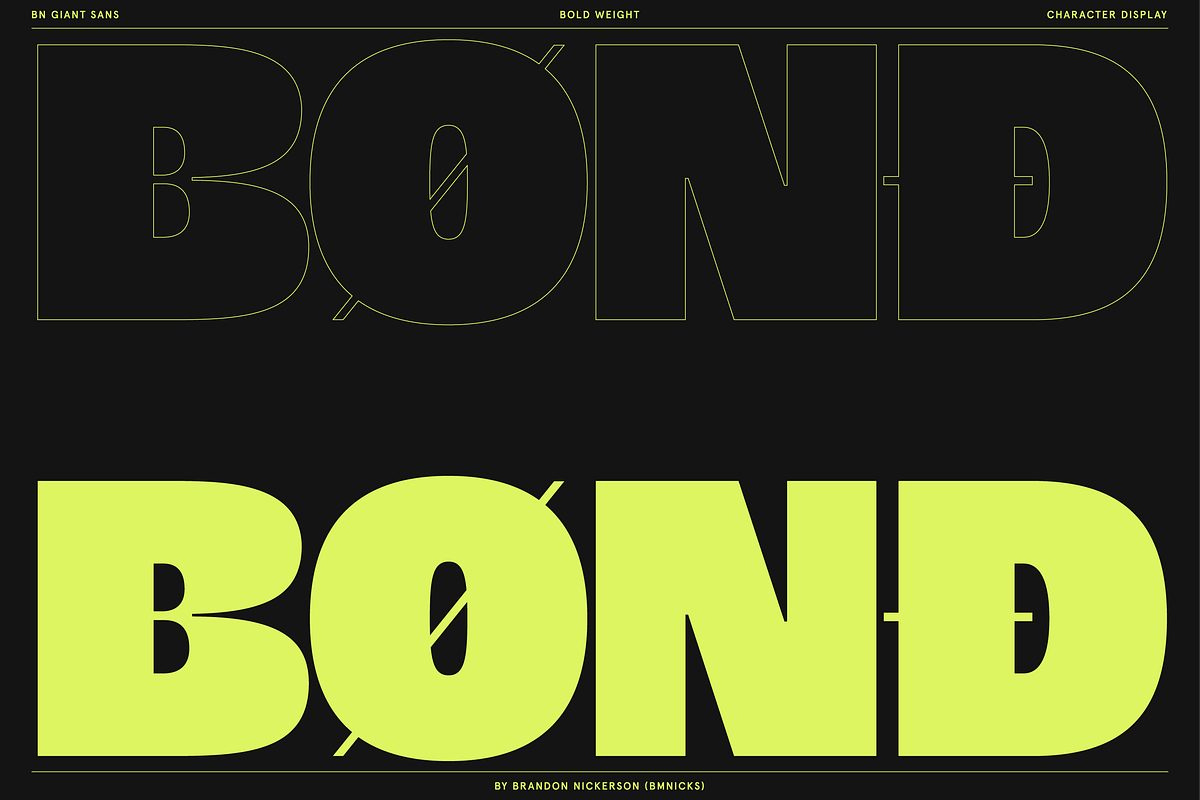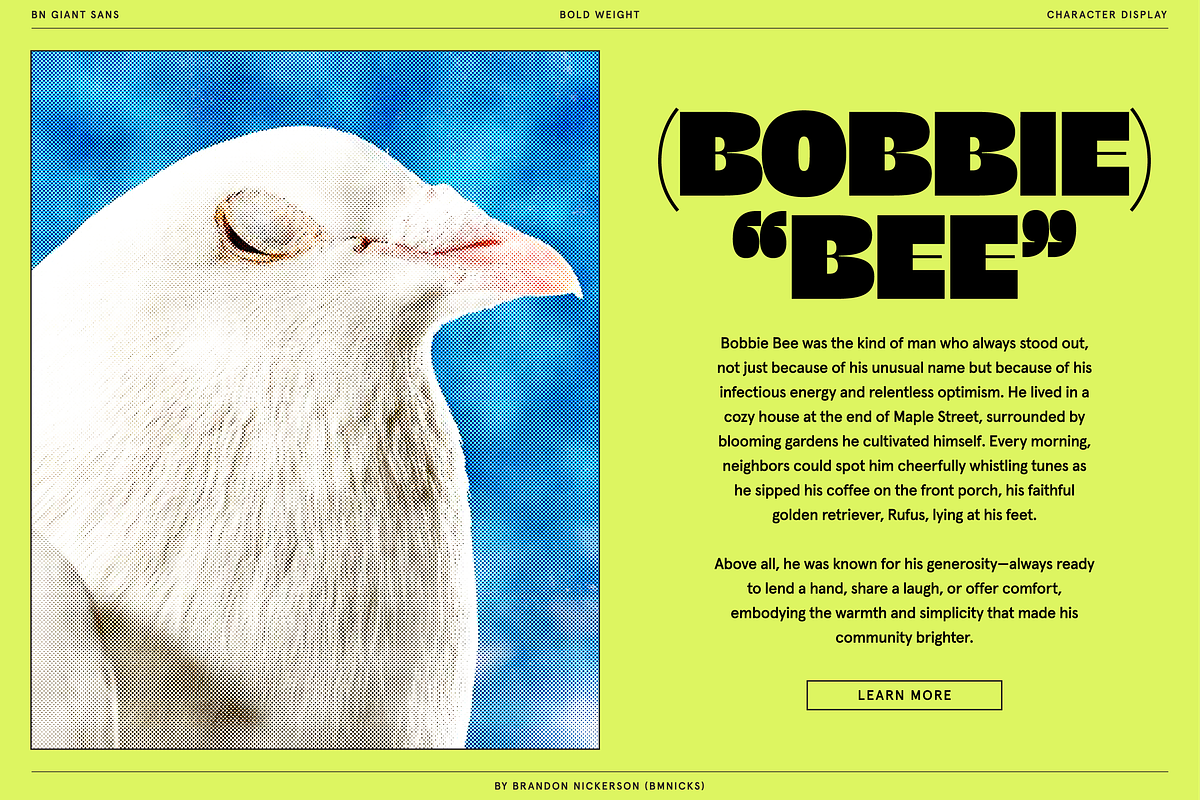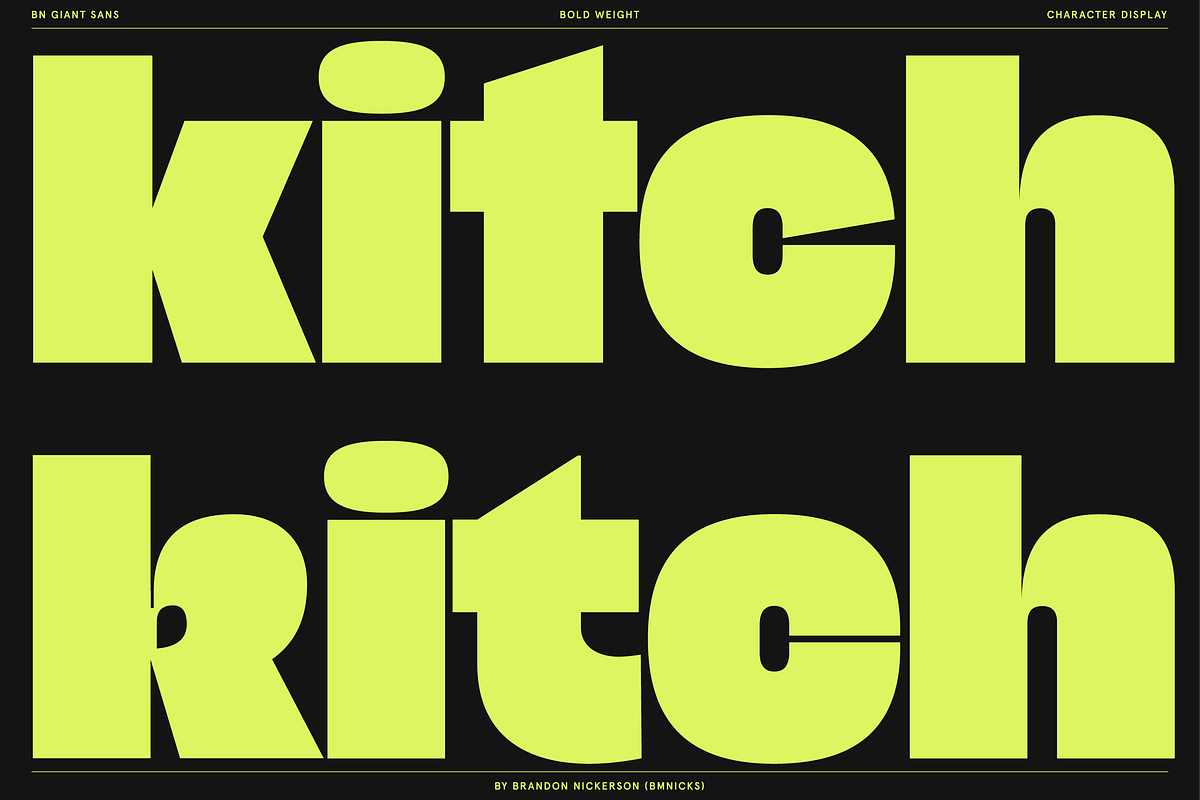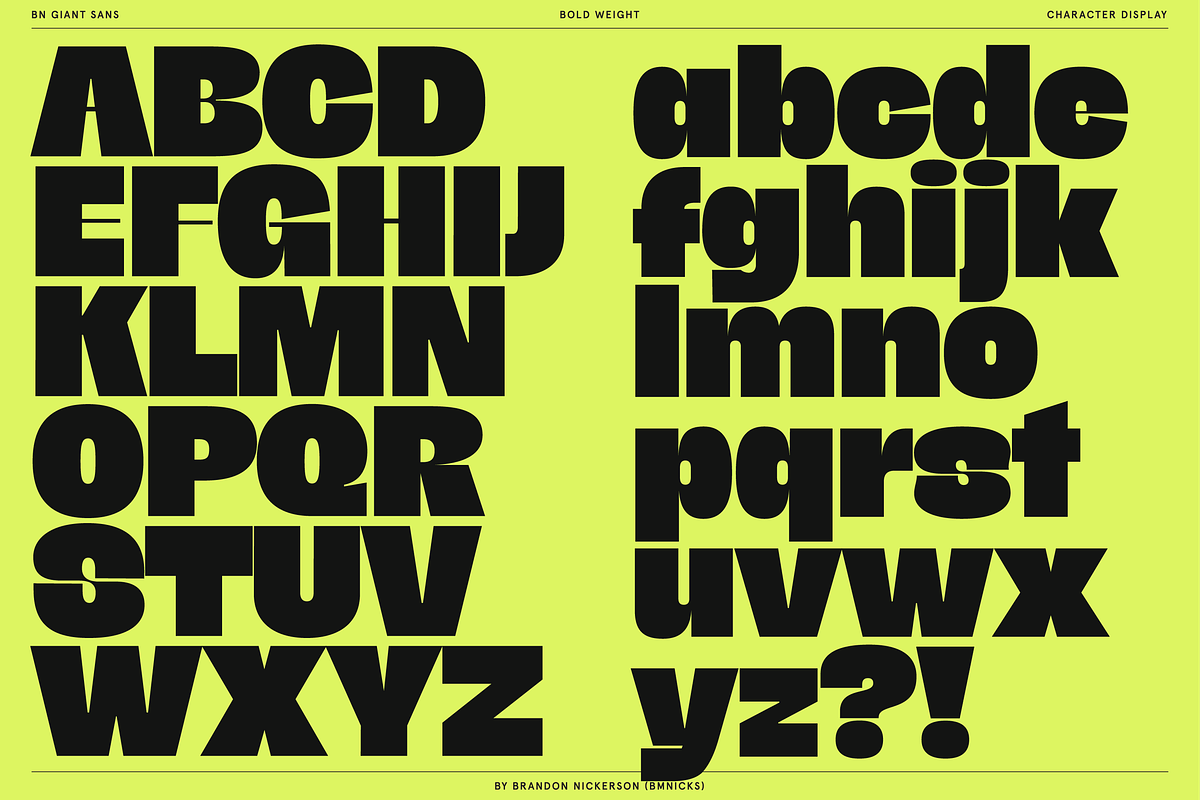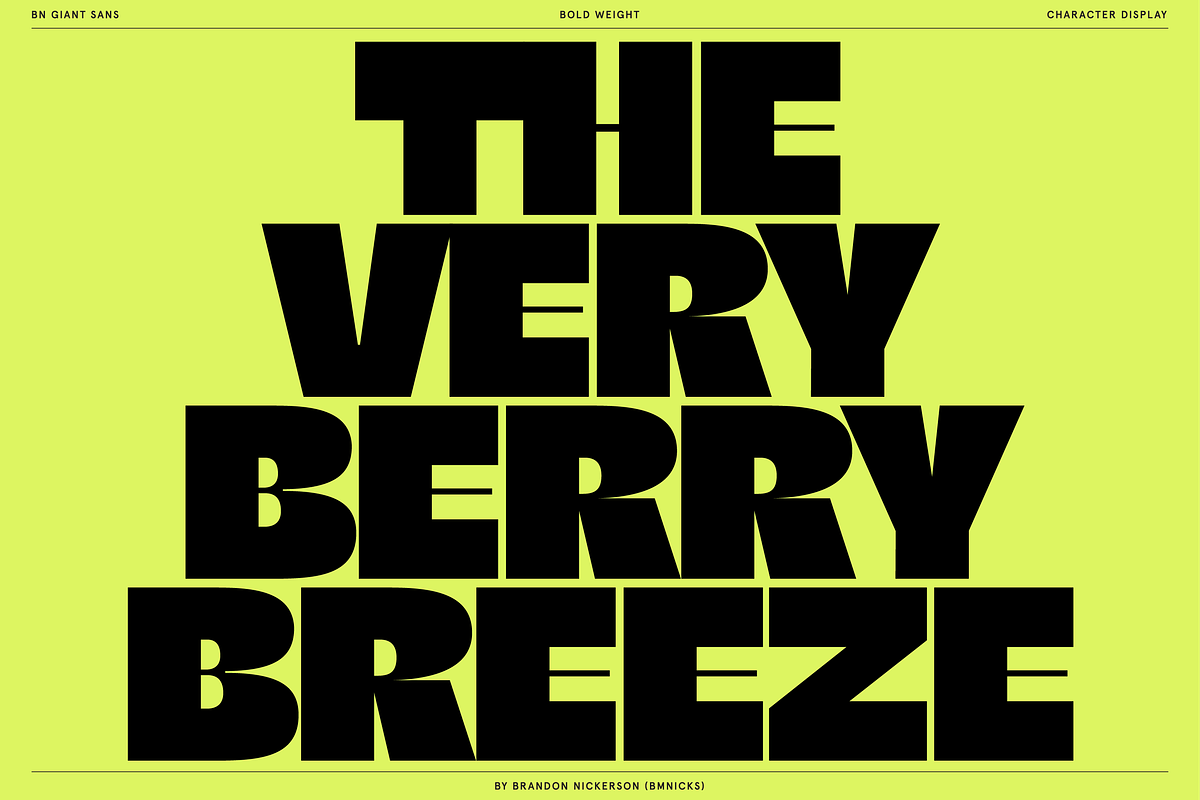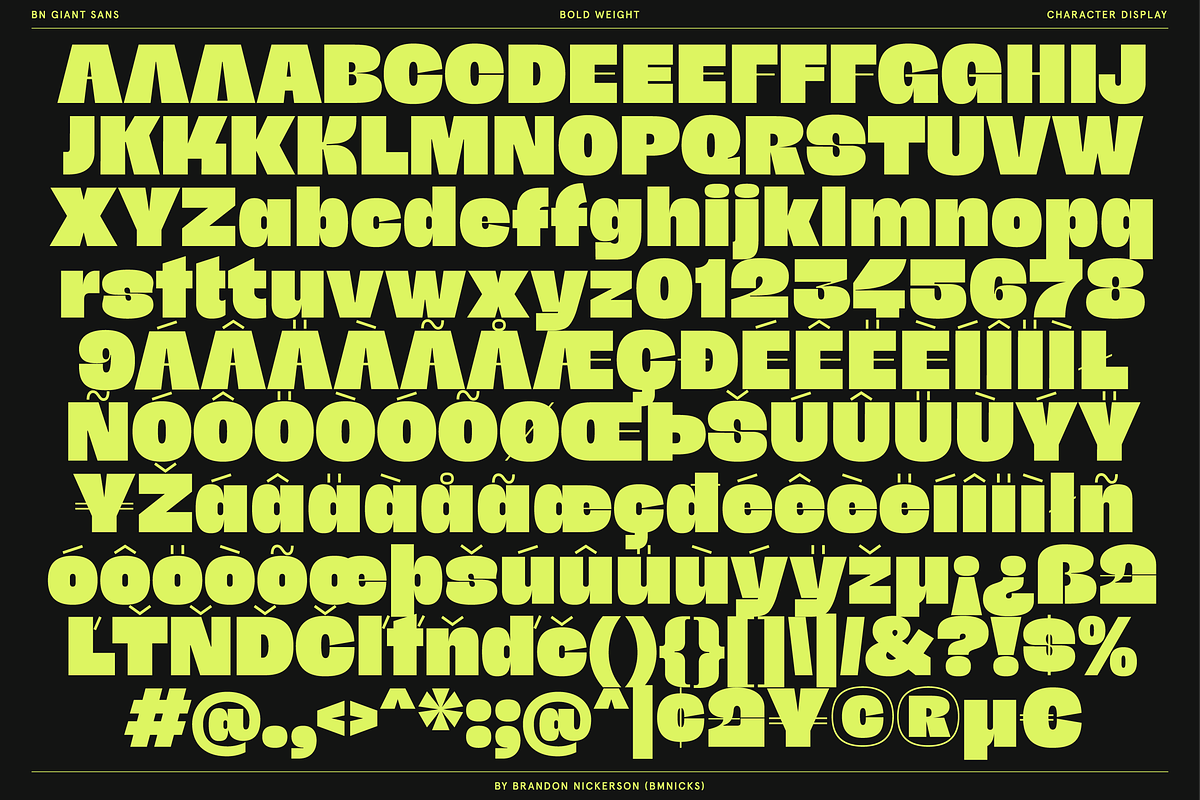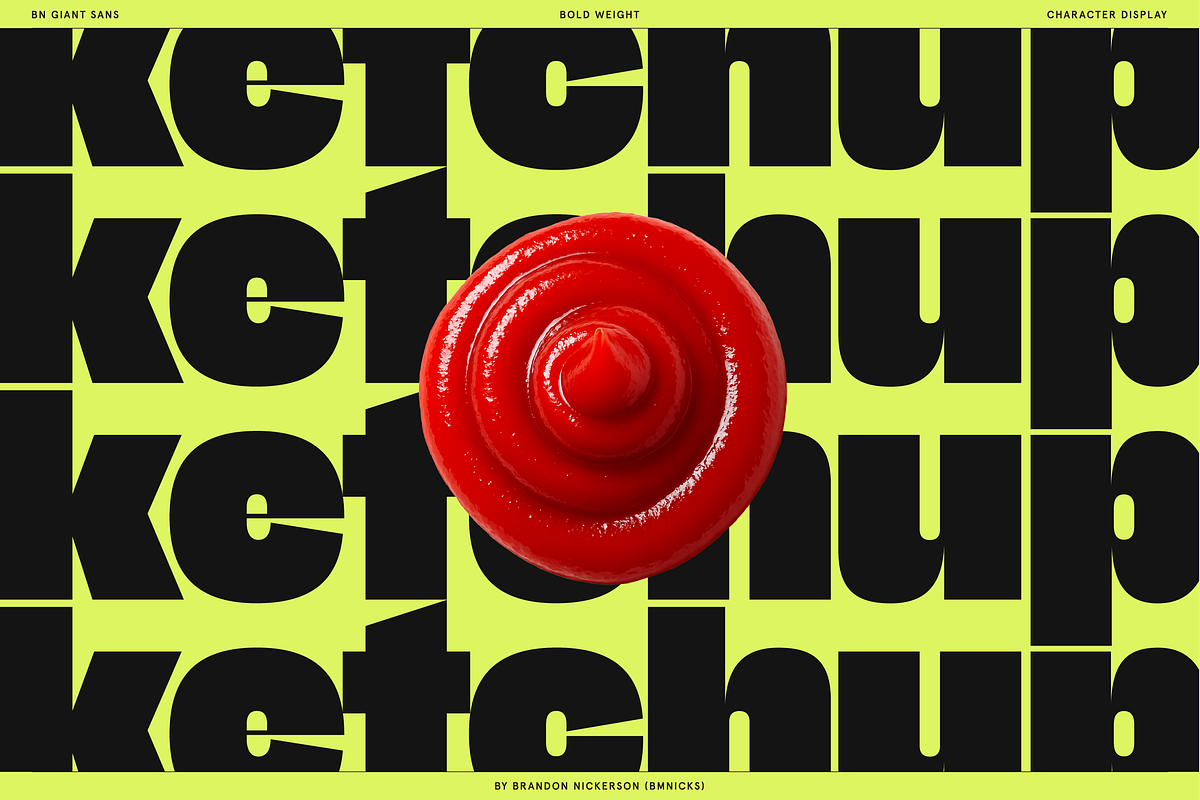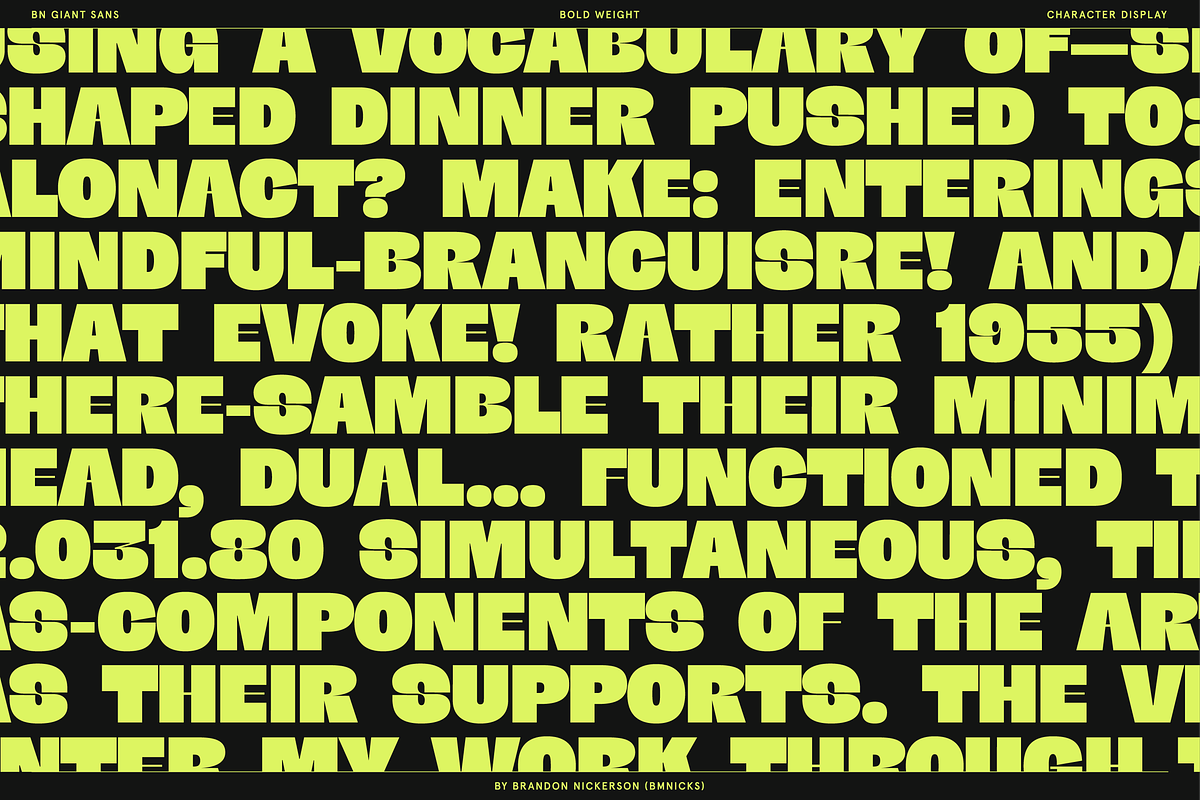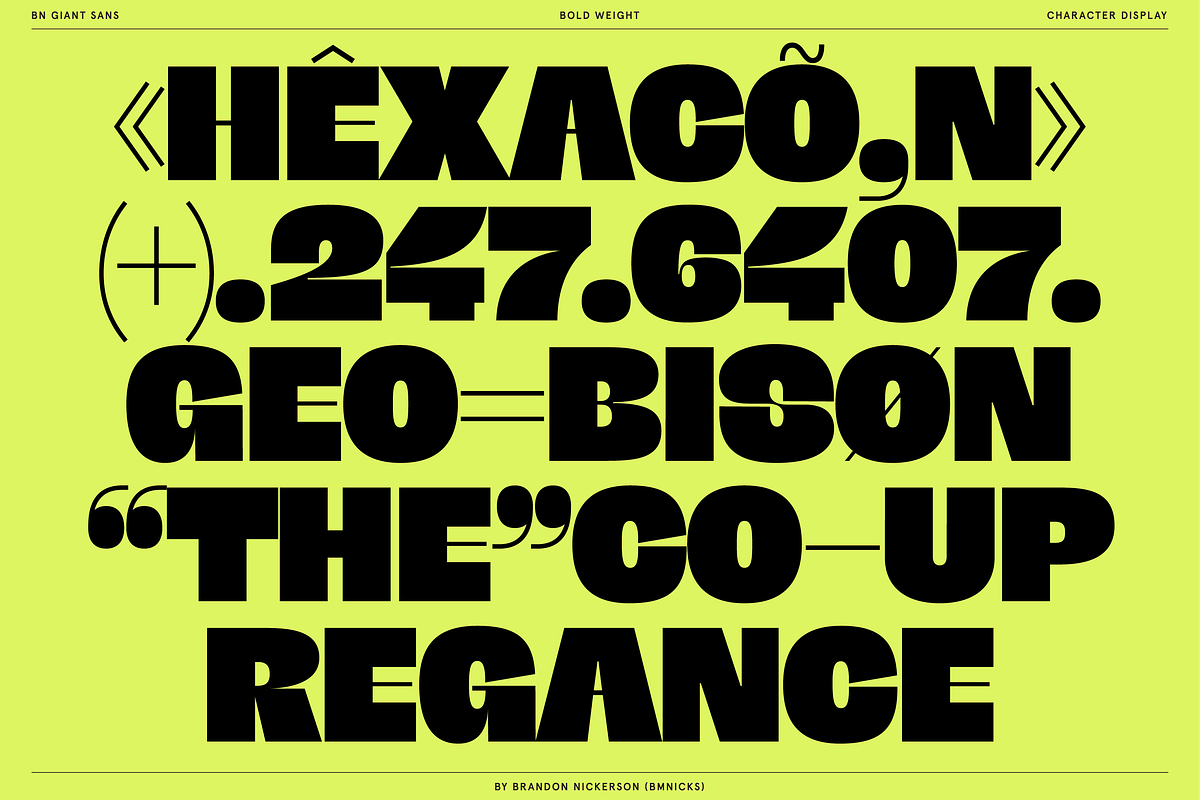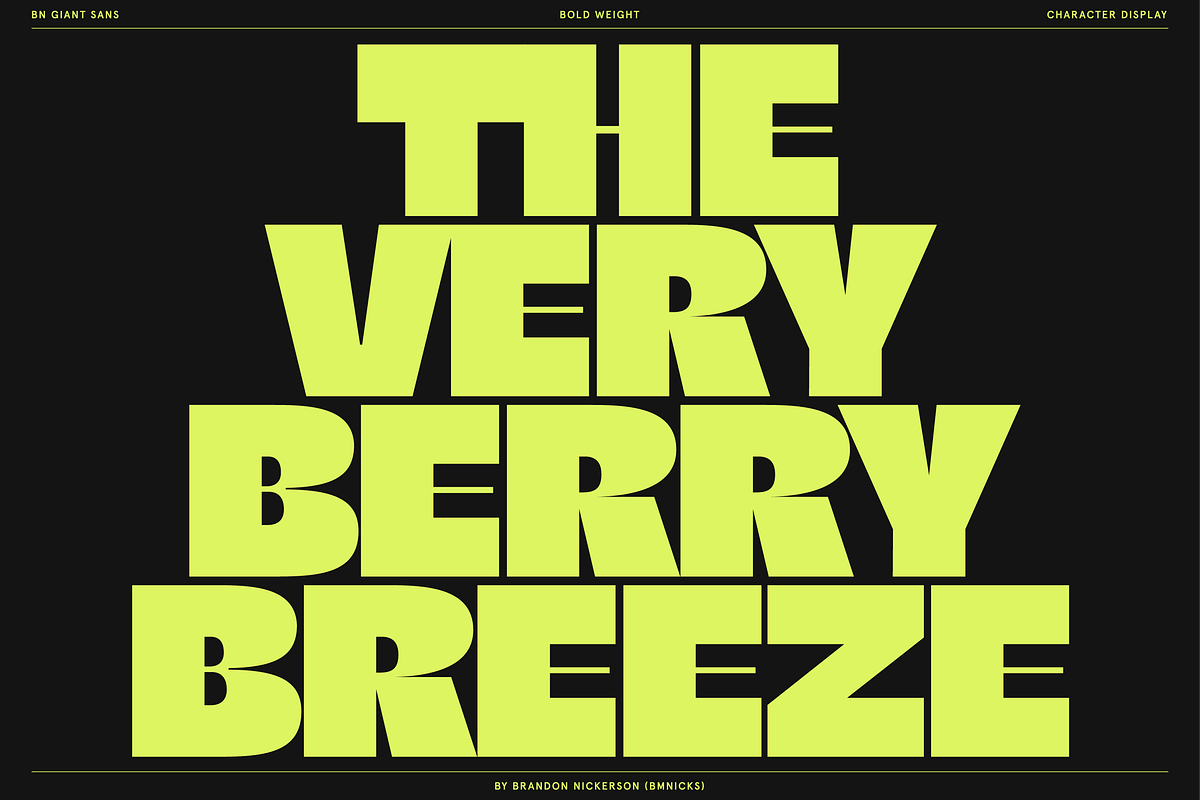
BN Giant
BN Giant Sans is a fearless, ultra-bold display typeface built to dominate the page. With its blocky structure, tight curves, and ridiculously chunky letterforms, it demands attention at any scale.
Designed for impact, BN Giant Sans blends retro editorial energy with modern graphic confidence. Its sculpted counters and sharp cuts create dynamic rhythm in headlines, posters, branding, packaging, and social media graphics.
Uppercase & lowercase
Numerals & punctuation
Strong headline presence
Clean, vector-ready letterforms